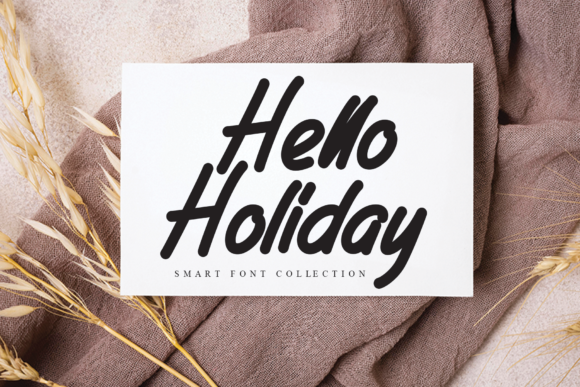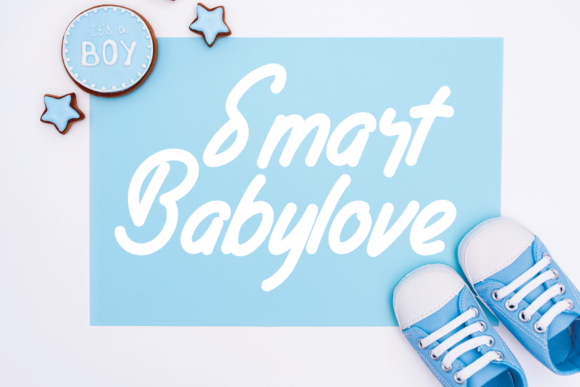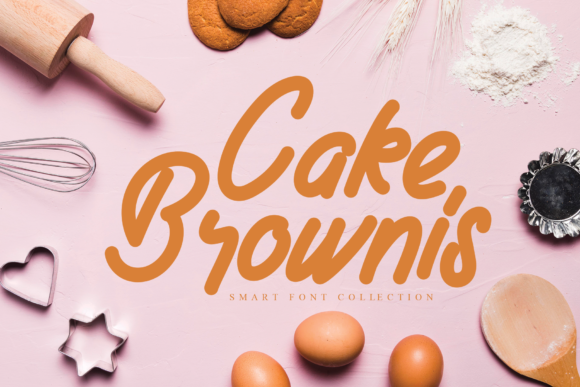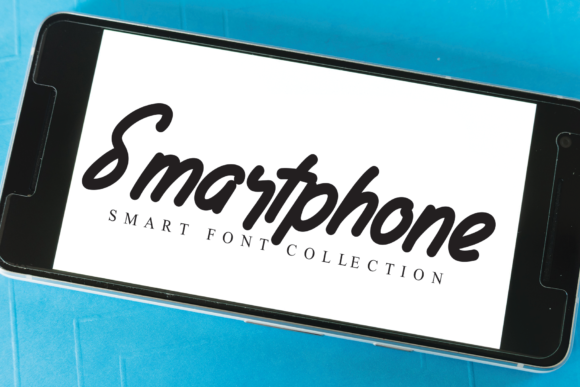
Unleashing the Elegance of Your Designs
Have you ever stared at a blank page, waiting for the perfect font to bring your creative vision to life? The struggle is real, but today we’re excited to introduce you to the solution: Anittabella Font. This stunning brushed script font is designed to evoke a timeless, classic feel that’s perfect for any project.
Anittabella Font is more than just a pretty face – it’s a carefully crafted tool for designers who want to elevate their work. With its balanced and varied strokes, this font is designed to add a touch of sophistication to your projects, whether it’s a wedding invitation, a branding campaign, or a personal blog. By incorporating Anittabella Font into your design arsenal, you’ll be able to take your projects to the next level and leave a lasting impression on your audience.
Anittabella Font Key Features
- Font Family: Anittabella
- Unique Characteristics: Elegant, cursive script with a touch of classic sophistication, ideal for wedding invitations, greeting cards, and other formal events
- Supported Languages: Latin-based languages, including English, Spanish, French, and many others
Anittabella Font Review
I recently had the chance to work with the Anittabella font, and I have to say it’s been a mixed bag. Here’s my honest take.
- The Anittabella font has a beautiful, elegant feel to it. It’s perfect for creating a sophisticated and high-end look in your designs.
- The font is highly customizable, with a wide range of weights and styles available. This makes it easy to adapt to different design needs.
- The font is also very legible, even at small sizes. This makes it a great choice for body text and other areas where readability is crucial.
- The font is not as versatile as some other fonts on the market, and may not be the best choice for casual or informal designs.
Overall, I think the Anittabella font is a solid choice for designers looking to create high-end, sophisticated designs. While it may not be the best choice for every project, it’s definitely worth considering for the right kind of design. With its beautiful feel and high level of customizability, it’s a great option for designers who want to create something truly special.
Anittabella Font Practical Application Guide
- Use the font to create visually appealing headings and titles.
- Use the font to create custom typography and graphics.
- Use the font to create professional-looking presentations and documents.
Tips for Getting the Most Out of Anittabella Font
For the best results, use Anittabella Font in conjunction with other elegant and modern fonts. Experiment with different font sizes and styles to create visually appealing combinations. Consider using the font for headings and titles, and pair it with a simpler font for body text.
Anittabella Font is ideal for creating elegant and sophisticated designs. It’s commonly used for:
- Custom typography and graphics
Alternatives to Anittabella Font
Great Vibes is a modern, elegant script font that works well for branding, packaging, and signage. It has a more refined and sophisticated feel compared to Anittabella Font, making it suitable for luxury brands and high-end designs.
Comparison: Great Vibes Font has a more subtle and refined feel, while Anittabella Font is more playful and whimsical. Great Vibes is better suited for formal designs, whereas Anittabella Font is ideal for casual and creative projects.
Carolyna Pro is a versatile script font that is suitable for a wide range of design applications, from packaging and branding to editorial and advertising. It has a unique, handwritten feel that is both elegant and approachable.
Comparison: Carolyna Pro Font has a more fluid and dynamic feel compared to Anittabella Font, making it better suited for projects that require a sense of movement and energy. Anittabella Font is more suited for static designs, while Carolyna Pro is ideal for dynamic and interactive projects.